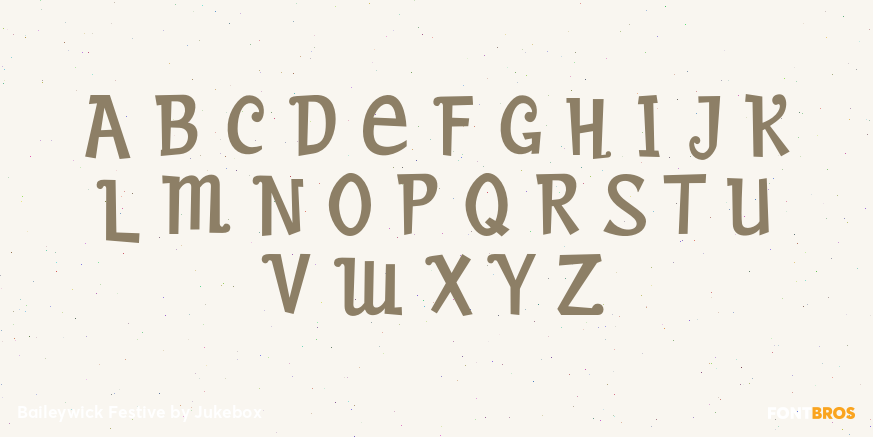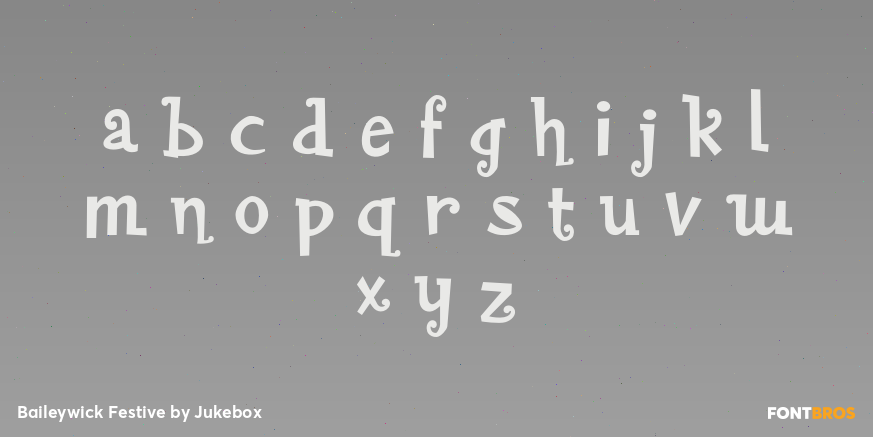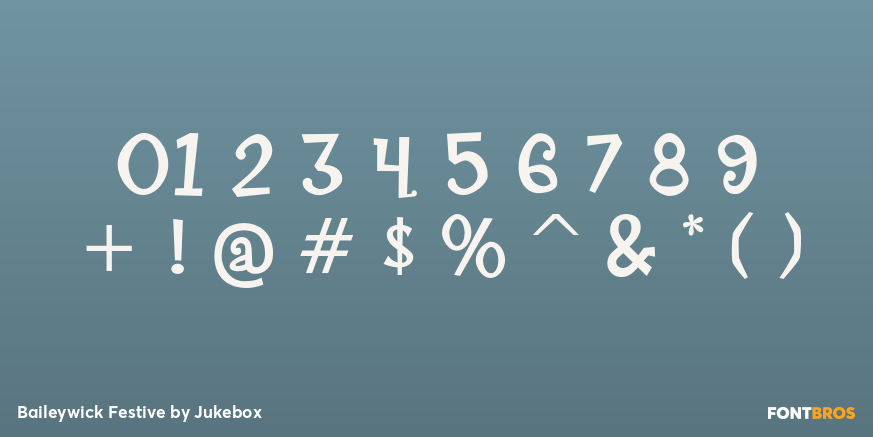
Baileywick Festive
Font Family by Jukebox
Baileywick Festive is a cartoonish and fun font that evokes feelings of laughter and joy. The modulated baseline gives it a "bounce" that keeps it light and upbeat.